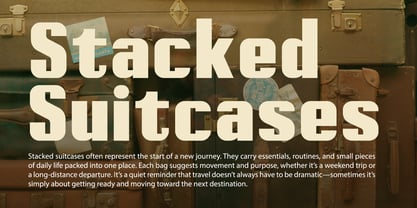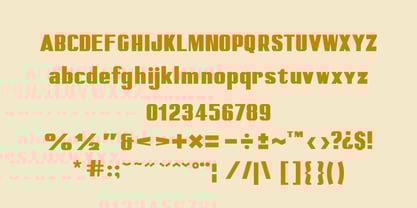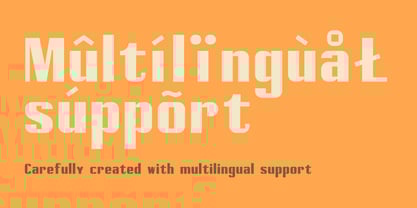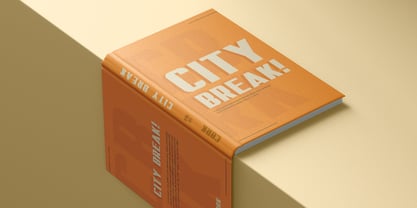
Gelageo
The Gelageo Font Family was designed by Yohanes Oktavianus Aang and published by Yohanes Oktav. Gelageo contains 3 styles and family package options. More about this family
GelaGeo is a bold geometric display font that infuses a warm, vintage-meets-modern personality into your designs. Its chunky shapes, soft corners, and confident proportions create a friendly yet impactful presence that stands out effortlessly. GelaGeo seamlessly blends retro charm with clean geometry, making it an ideal choice for designers seeking a typeface that feels both familiar and fresh. Perfect for branding, packaging, posters, café signage, merchandise, editorial titles, and creative lifestyle projects, GelaGeo delivers a strong visual voice without appearing harsh or mechanical. It embodies a handcrafted spirit with a modern twist, providing your design with a playful, approachable, and memorable character.